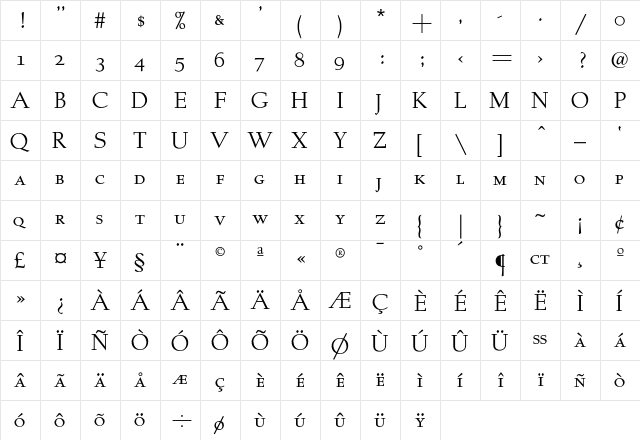
AlbertanH-SC Regular
Design Context for AlbertanH-SC Typeface
AlbertanH-SC offers clean, dependable letterforms without strong stylistic allegiance, making it a practical choice for designers who need flexibility.